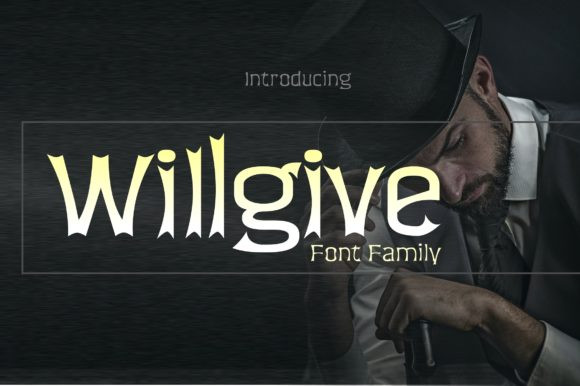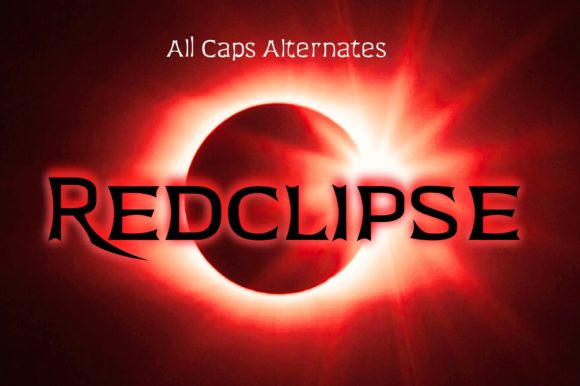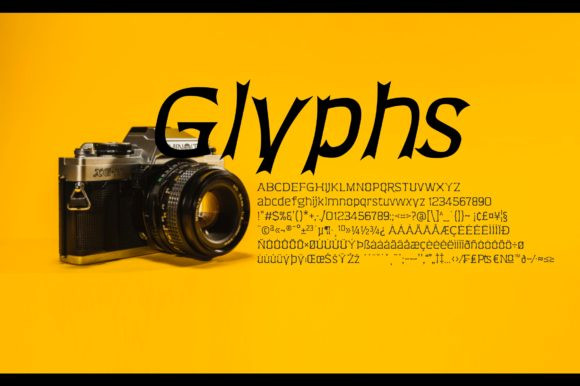
Willgive Font
Willgive is a modern and interesting display font. Spooky and cute, this font is ideal for each of your Halloween designs or October parties!